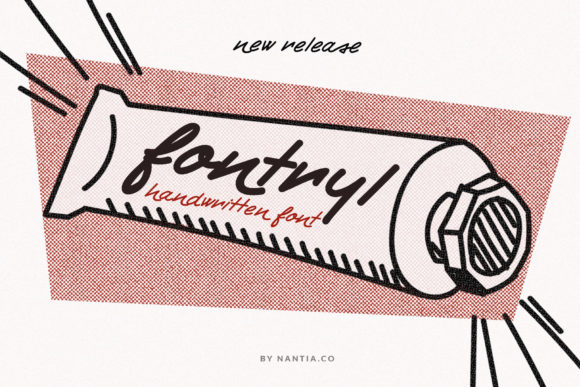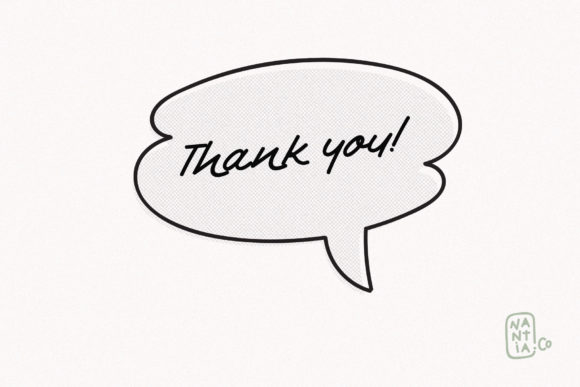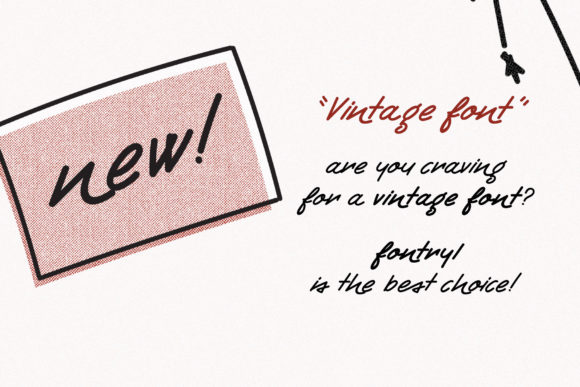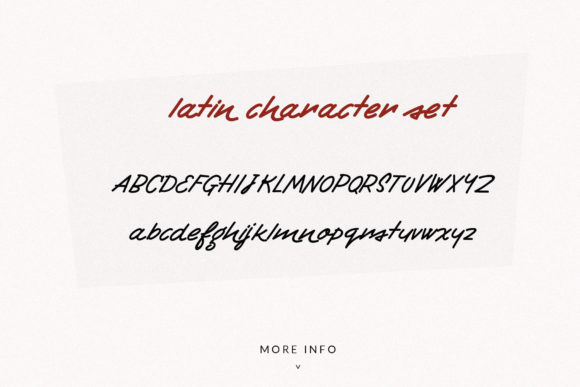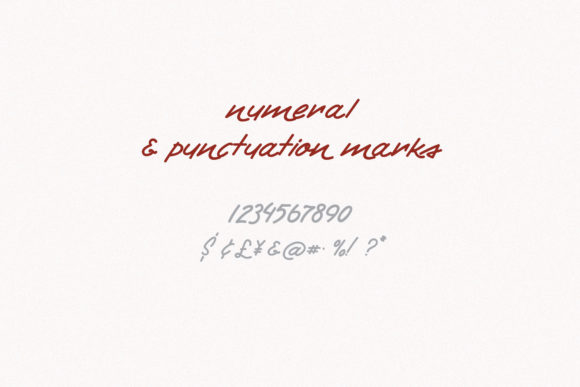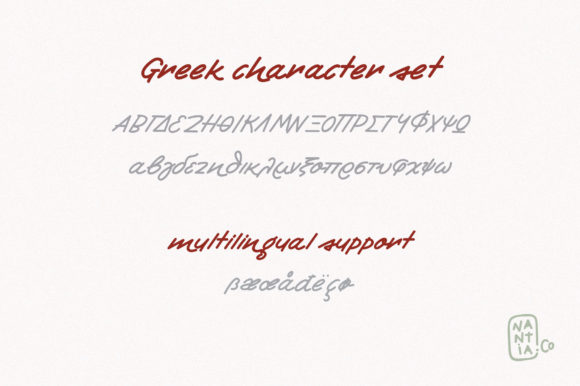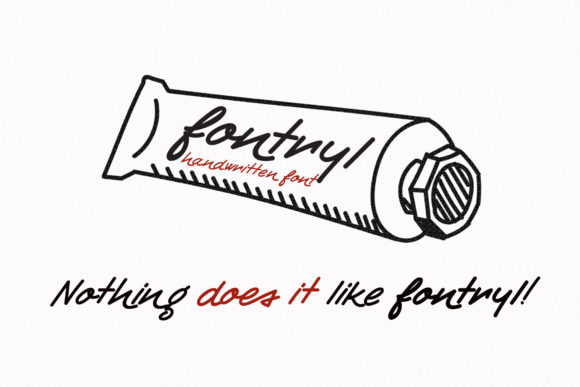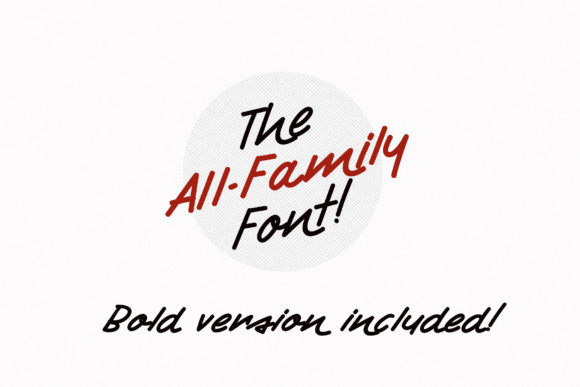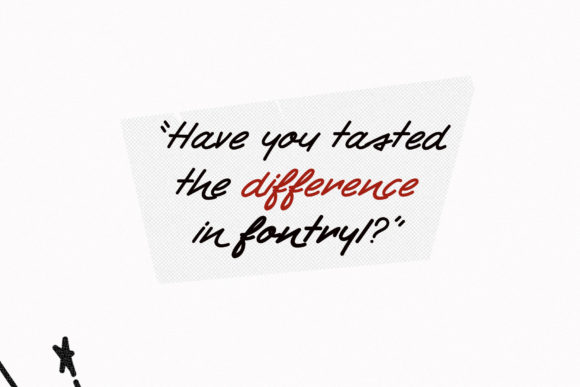
HomeScript FontsFontryl Font Script Fonts Fontryl Font FacebookXPinterestWhatsApp Fontryl Font Poster 2 Fontryl Font Poster 3 Fontryl Font Poster 4 Fontryl Font Poster 5 Fontryl Font Poster 6 Fontryl Font Poster 7 Fontryl Font Poster 8 Fontryl Font Poster 9 Fontryl Font Poster 10 About Fontryl Font Fontryl is an extraordinary retro handwritten font with a bold feel. It’s perfect for making any design stand out. DOWNLOAD NOW People also explored Brilliant Soulmates Font Duo Plus Extras Lady Slippers Basic Font Handmade Font Long Tall Palito Olivia Font Luckylove Font Picture Book Font Indium Font Nyai Ontosoroh Font 460 0 TagsFontryl Font Previous articleLe Petit Cochon FontNext articlePalegina Font LEAVE A REPLY Cancel reply Comment: Please enter your comment! Name:* Please enter your name here Email:* You have entered an incorrect email address! Please enter your email address here Website: Save my name, email, and website in this browser for the next time I comment. Personal Use Free Bruttney Personal Use Free Read more about this font Amellis Path Personal Use Free Read more about this font Browie Personal Use Free Read more about this font Doriss Girls Family Personal Use Free Read more about this font BLOG Best Fonts for YouTube Videos: Make Your Thumbnails Stand Out Best Fonts for YouTube Videos: Make Your Thumbnails Stand Out Choosing the right font can make a massive difference in how your YouTube videos perform.... Fonts That Capture the Spirit of New York City Where to Buy American Fonts Online in 2024 Free Fonts Risk: Why Free Fonts Can Be Dangerous for Designers